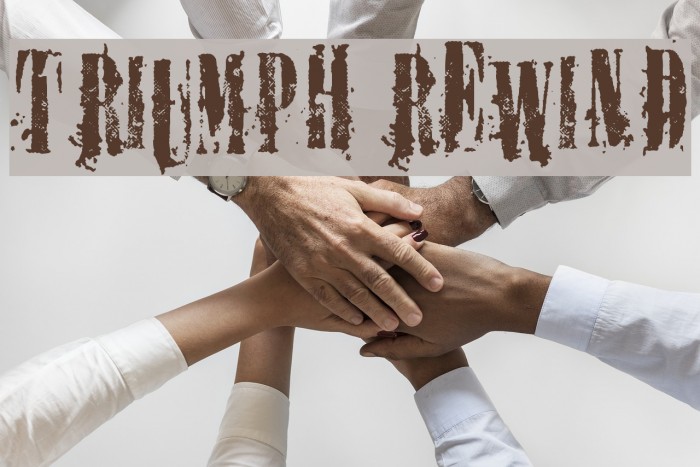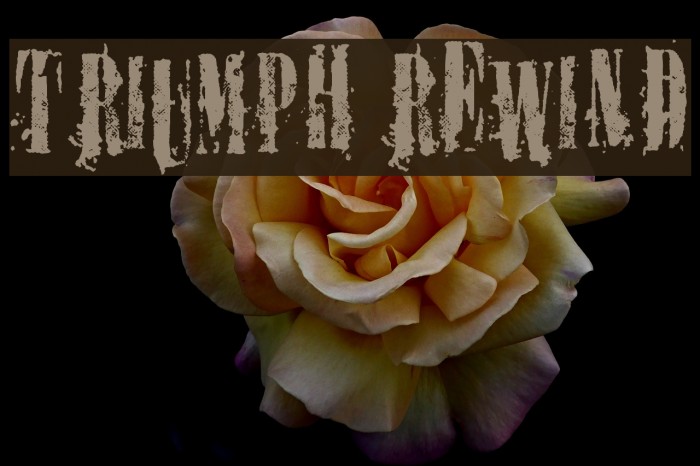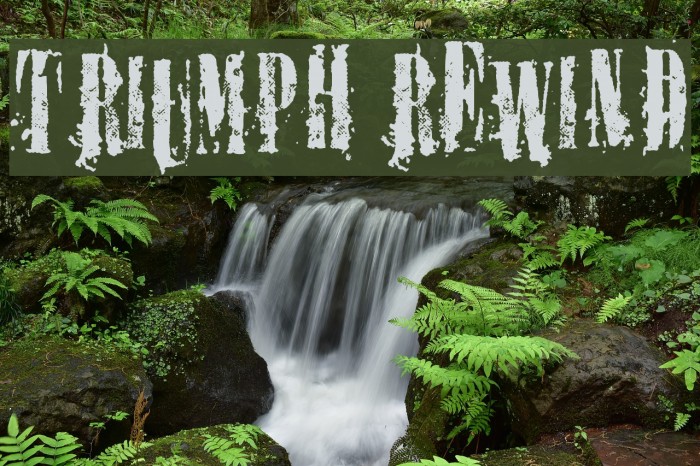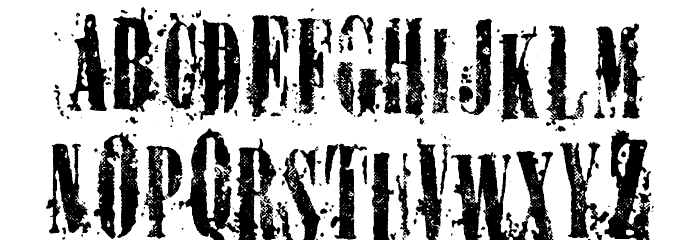
TRIUMPH REWIND Font
TRIUMPH REWIND Description
This font features a distressed, grunge style with a bold and impactful appearance. The characters are heavily textured, giving them a worn and rugged look, reminiscent of vintage or industrial themes. The uppercase letters are prominent, with a rough, uneven edge that adds to the overall distressed aesthetic. The font's design is suitable for creating a strong visual impact, making it ideal for projects that require a bold statement. Its unique style can be used to evoke a sense of nostalgia or to create a gritty, urban feel.
A bold, distressed font with a grunge, vintage aesthetic from Uncategorized fonts.
- Proposed Projects: Ideal for posters, album covers, branding for edgy products, or any design needing a strong, vintage industrial feel.
- Overall Style: Vintage, Grunge